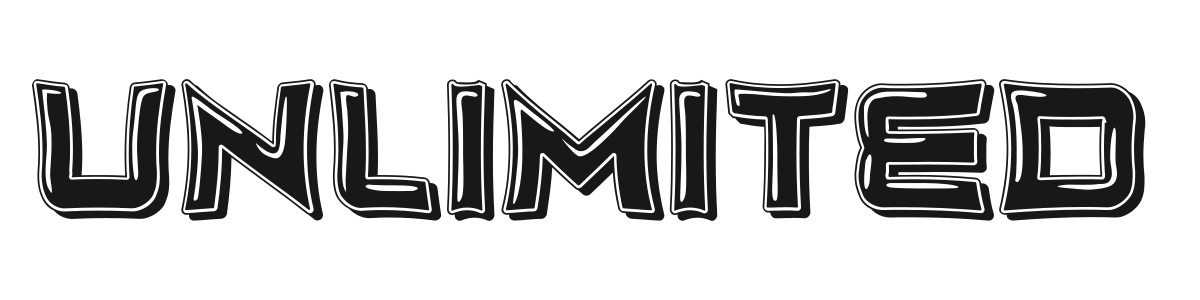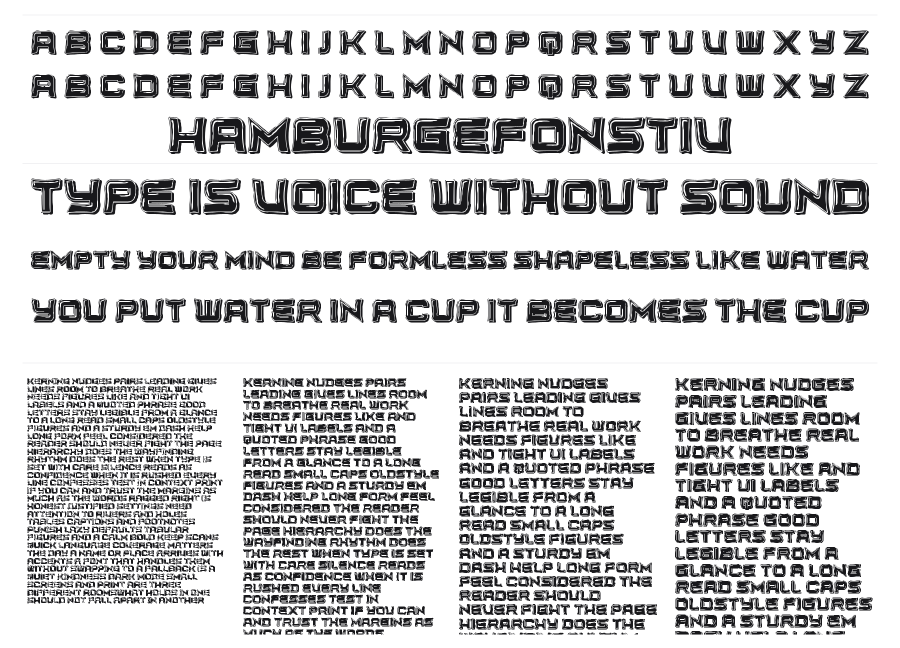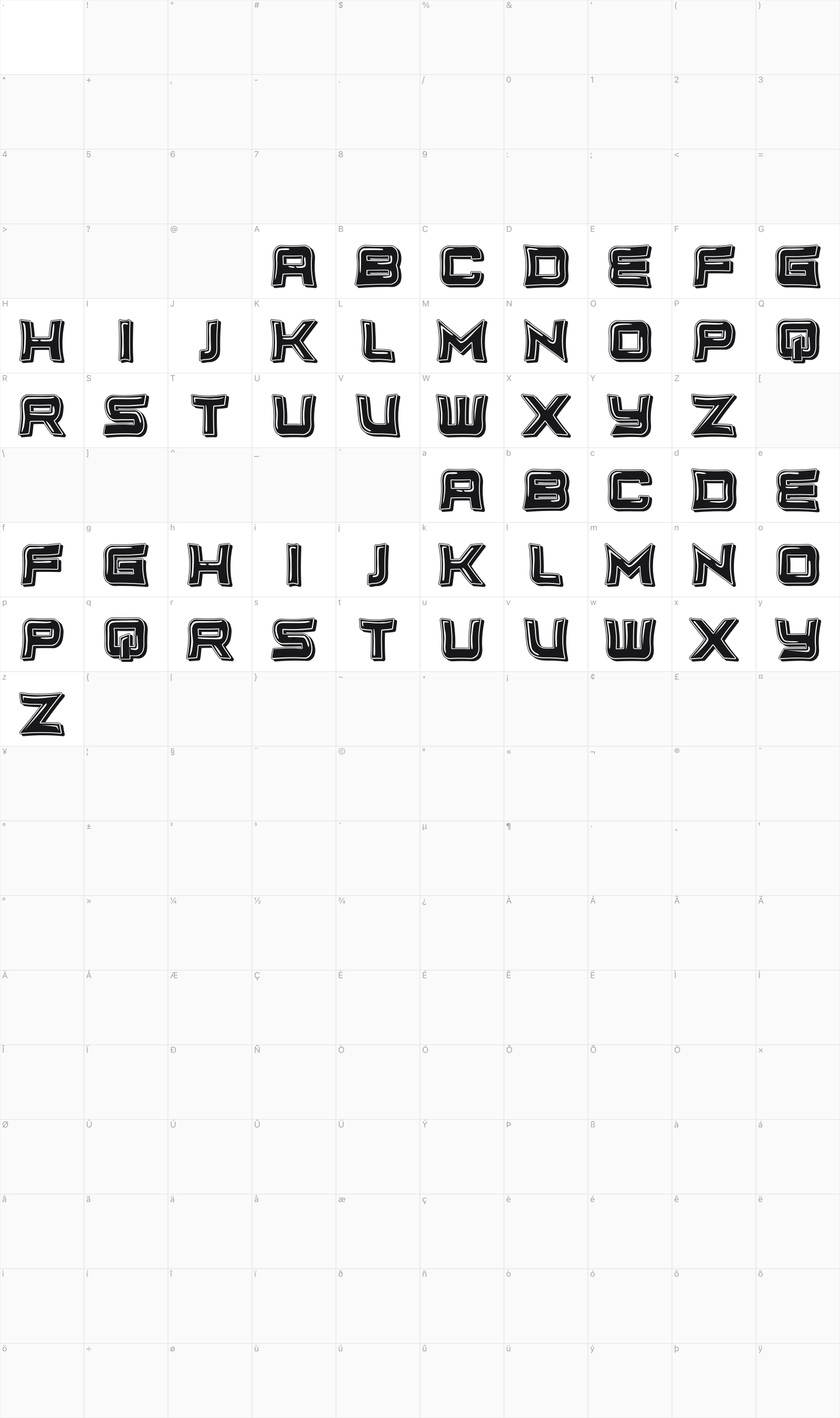
Unlimited
Unlimited is a heavy retro display face built around a dramatic 3D extrusion with an inline white stripe that gives it a chrome or neon-sign quality. The blocky, wide characters have subtly rounded corners and a rough edge that keeps the design from feeling too slick. It was released as a family with Regular, White, 3D, and White3D variants for layering flexibility.